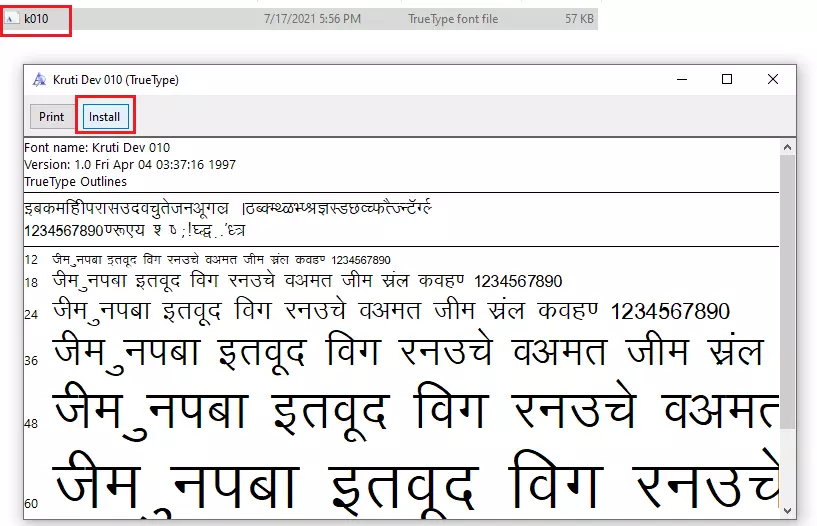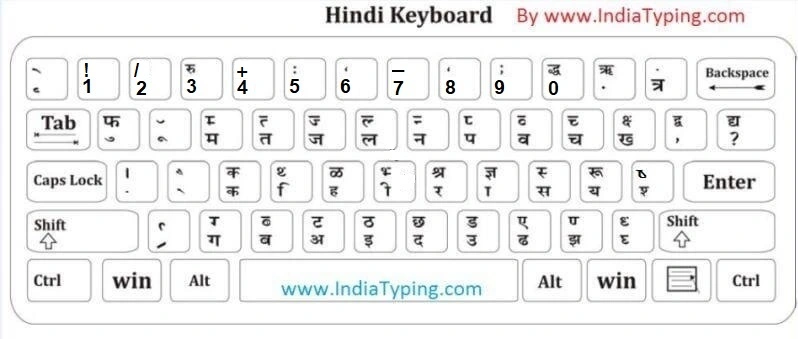
Krutidev Hindi Font
Krutidev fonts are most popular font for Hindi typing. Kruti Dev (कृतिदेव) is Devanagari typeface and non-Unicode clip font. Krutidev uses Remington (typewriter) keyboard layout for type in Hindi. Krutidev the most common and it is a standard font in many of the states government in India.
Most of the Hindi typing test examination in Hindi also take in Kruti dev font. Bihar, Chhattisgarh, Jharkhand, Jammu Kashmir, Haryana etc. state use it as official font for Hindi typing. Krutidev also choice of most Hindi typists because it is one of the most beautiful Hindi Font.
Krutidev fonts has a big series of fonts which contains many styles and glyphs. You can try Krutidev font before download, so you can see, how they will look without hassle of installing each font.
What is Krutidev ?
Krutidev is non-unicode Devanagari font. Hindi language is type or written in "Devanagari Script". To type in Hindi language in computer we need fonts, Krutidev is one of them. Krutidev is most loved and downloaded Hindi font ever.
In the time of Unicode fonts krutidev doesn't loose its glory because it still used in software's that do not support Unicode like - Pagemaker and Photoshop. Krutidev font greatly used in DTP and Graphics works in Hindi. Use Unicode to Krutidev convert tools for font change.
Keyboard Layout for Krutidev font ?
Krutidev font layout is same as Hindi typewriter layout it's known as "Remington Layout". Before the invention of computers Mechanical typewriter was used for Hindi typing, to keep harmony with these typewriter, same layout is adopted for Hindi krutidev keyboard.